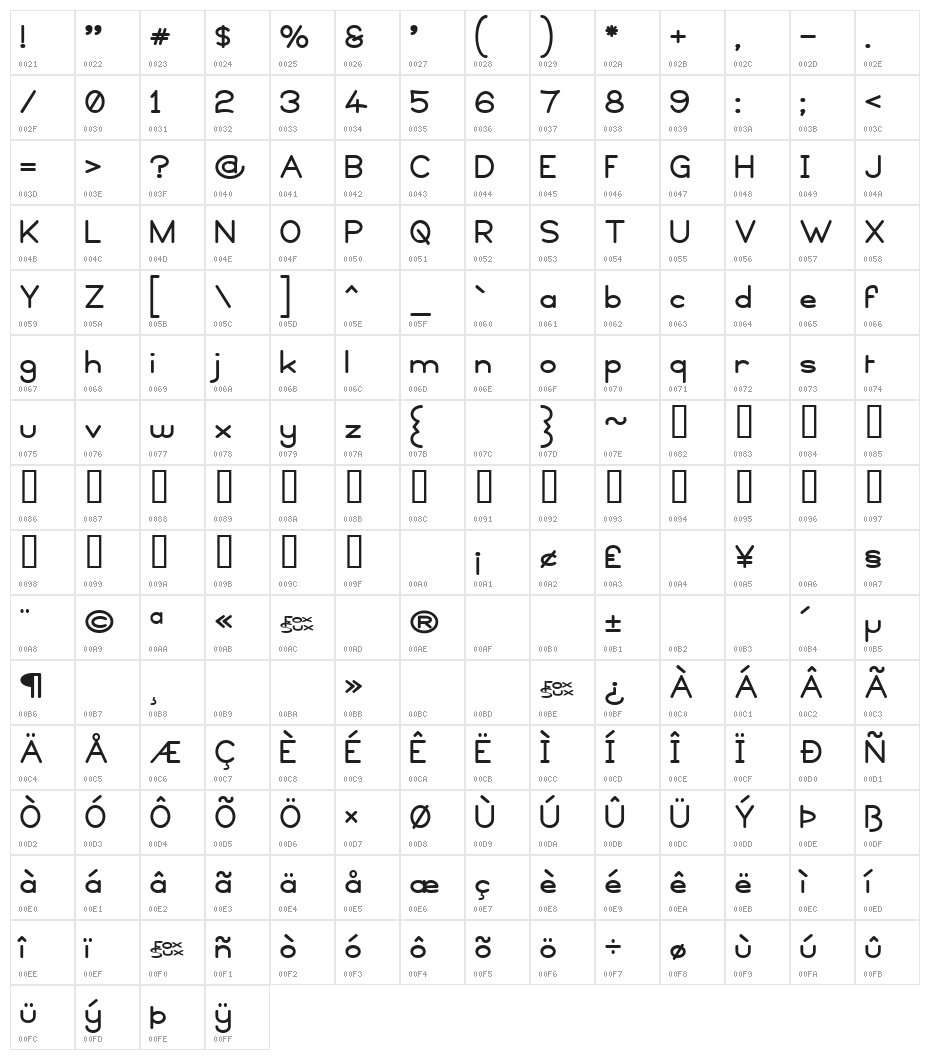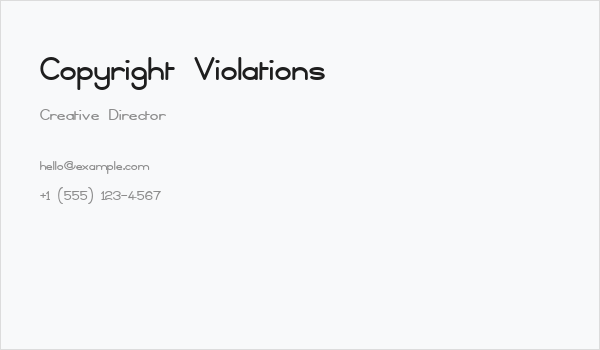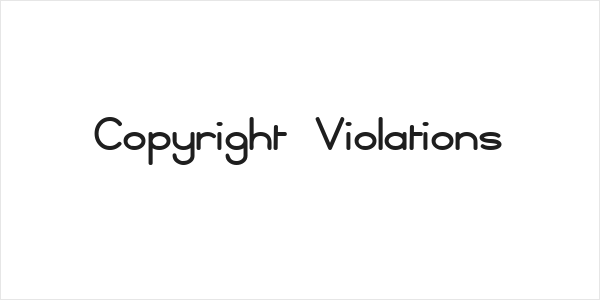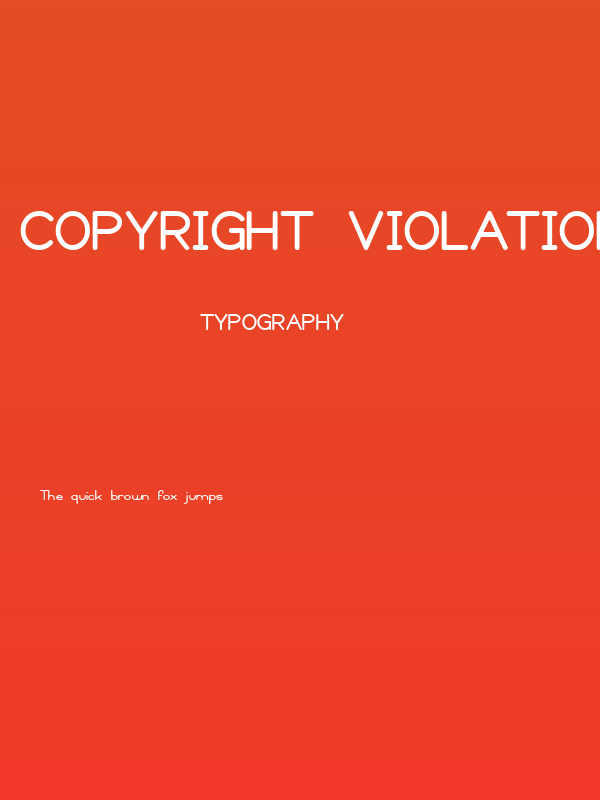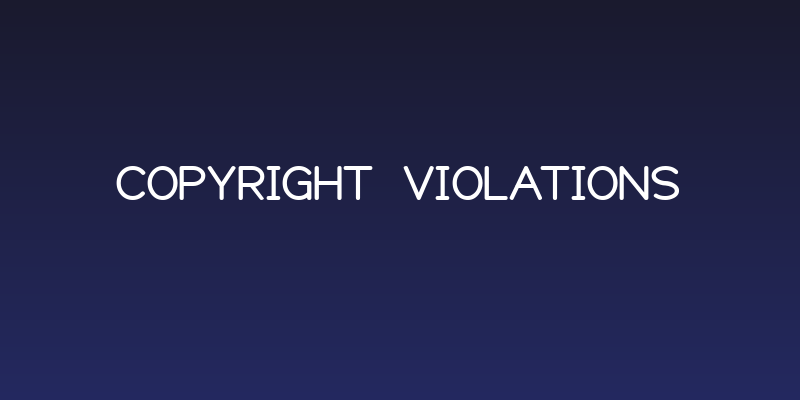
Copyright Violations Font
Copyright Violations Description
This font features a playful and rounded design, characterized by its smooth curves and uniform stroke width. The letters are evenly spaced, providing a clean and approachable appearance. The uppercase letters are bold and prominent, while the lowercase letters maintain a consistent style with slightly more rounded edges. The numerals are clear and easy to read, matching the overall aesthetic of the alphabet. Special characters are included, maintaining the same rounded and friendly style. This font is versatile, suitable for both digital and print media, and can add a touch of modernity and friendliness to any project.
| Use Case | Headlines, Logos, Casual Text |
| Proposed Projects | Ideal for children's books, playful branding, casual invitations, and modern web design. |